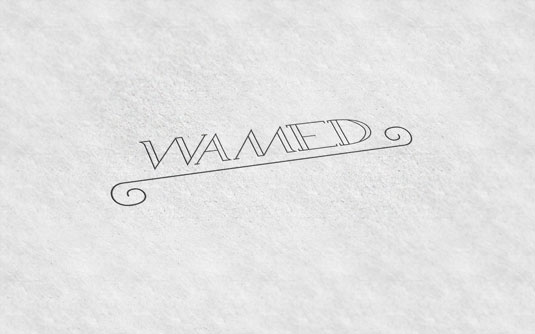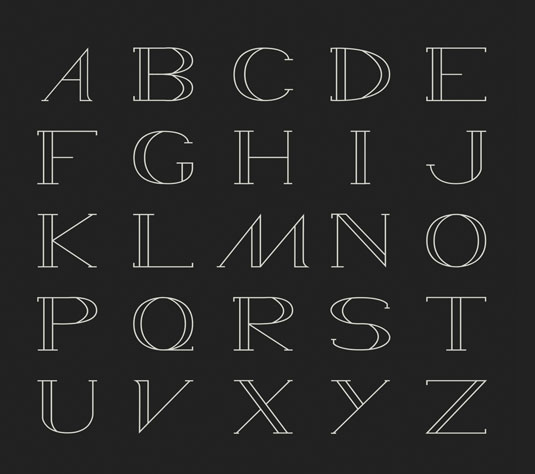
Font of the day: Wamed
Every day we showcase the best fonts from around the web. Today it's Wamed by Laura Pol - and it's totally free!
Wamed by Laura Pol
Today's font of choice is Wamed by graphic design student Laura Pol. "Wamed is a design I created while messing around with lines and type," says Pol. This outline-style design is the first version, with Pol currently working on a solid version, due for release soon.